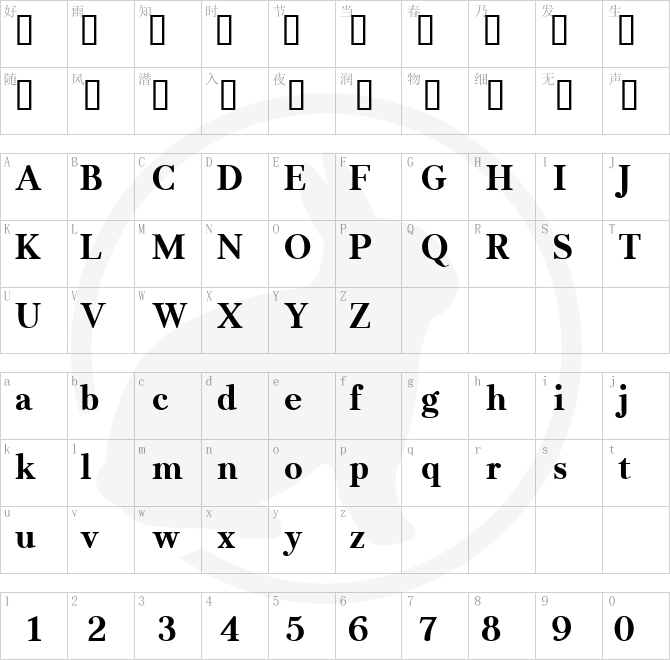
- Font Name:JabcedHy
JabcedHy-Bold.ttf is a very beautiful artistic font, JabcedHy-Bold.ttf is widely used in the design and printing of various books and pictures,JabcedHy-Bold.ttf has a strong visual impact,JabcedHy-Bold.ttf is a commonly used font in newspapers, magazines and books, and is used in posters, e-commerce Poster design, store design, logo design, font design and other fields.JabcedHy-Bold.